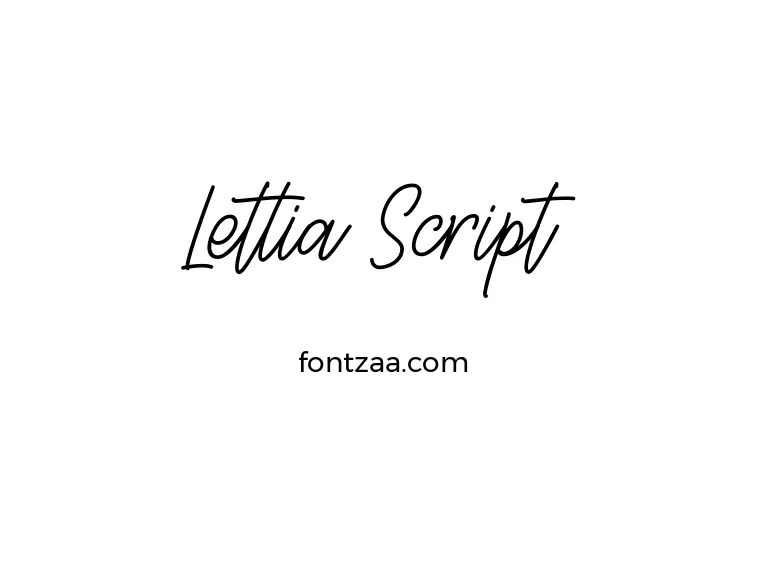
Lettia Script Font
Lettia Script Font comes from Weape Studio and has an elegant look. The download includes 1 font file (TTF) with 101 glyphs, covering uppercase and lowercase letters, numerals and common punctuation. It suits invitations, wedding stationery, signatures, quotes and elegant branding, particularly at larger sizes where the letter shapes are easier to see.
Pairing and Use
For body text, pair Lettia Script Font with a clean sans serif such as Montserrat or Lato and keep the font itself for headlines and key words.